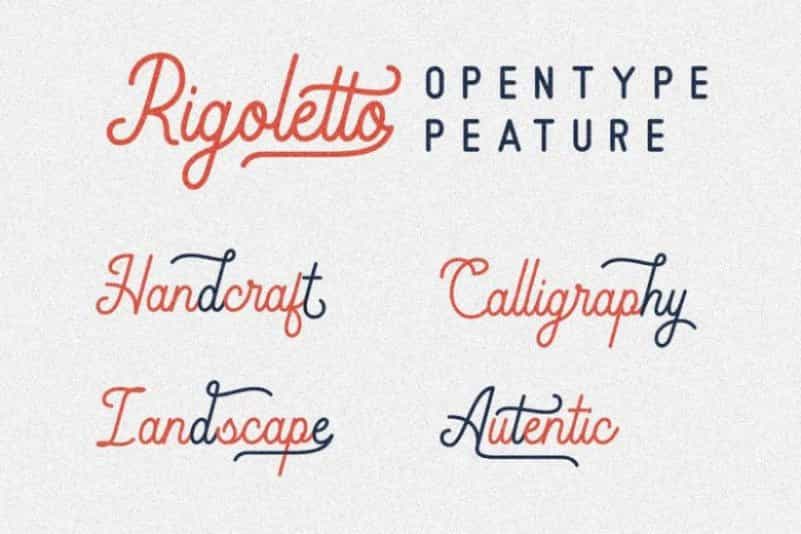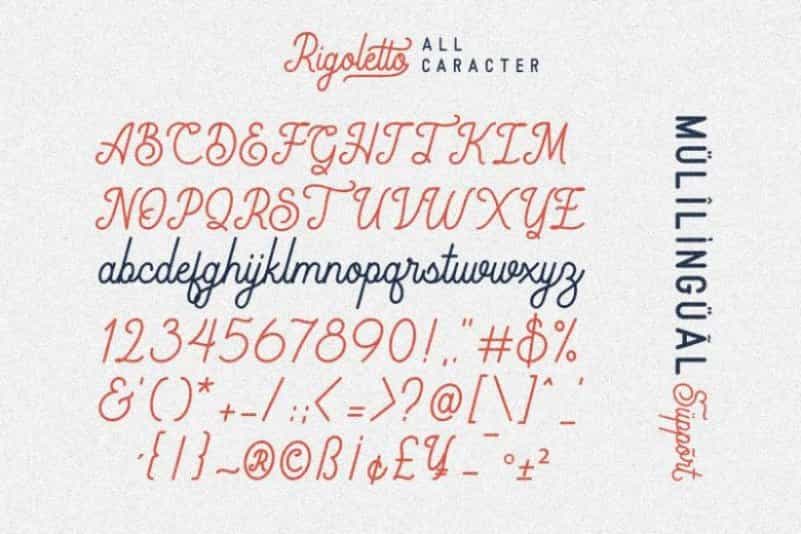
Introducing Rigoletto Script Font. This font has a cool monoline style with Sans Serif fonts that go well together with the style of the script. Thus, this font will create the clean, expensive and elegant design.